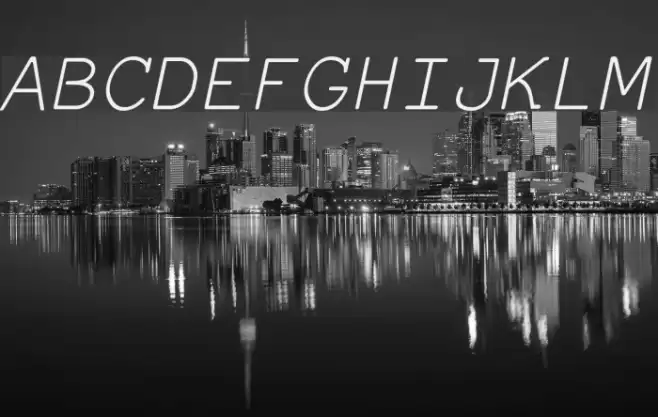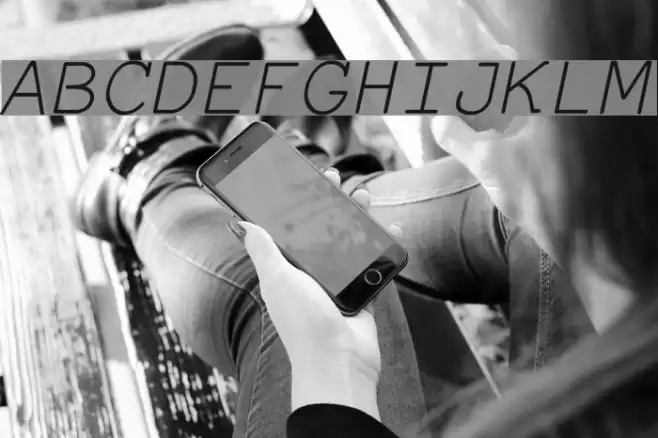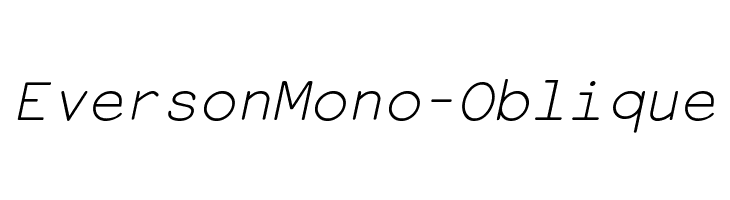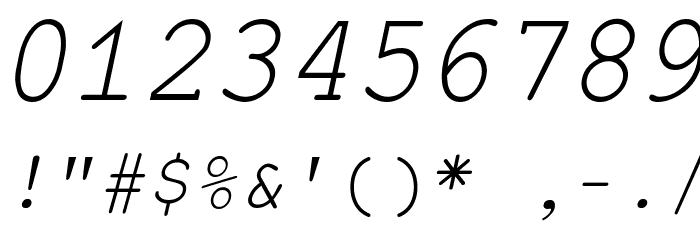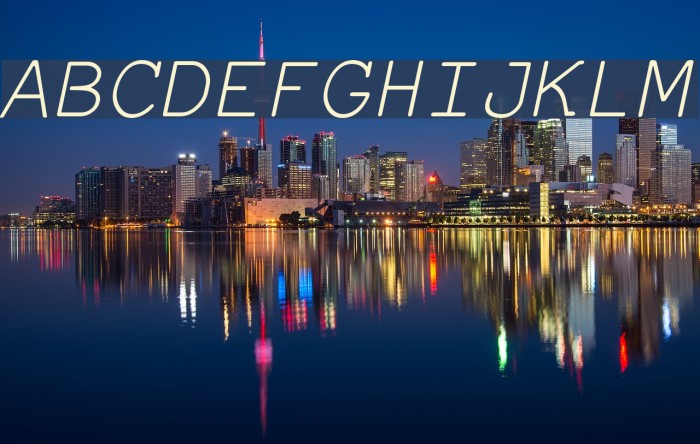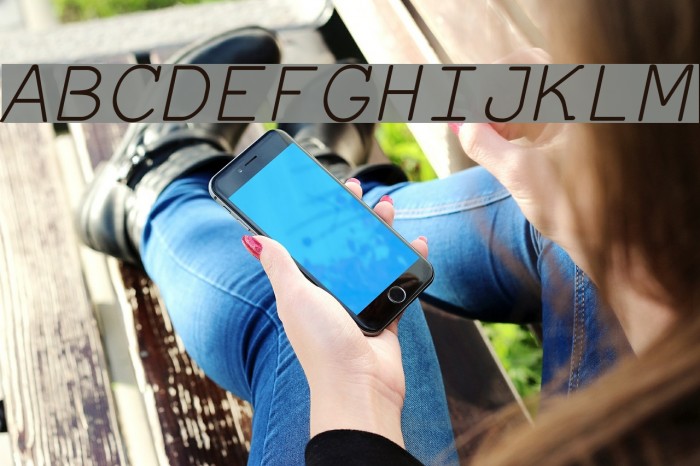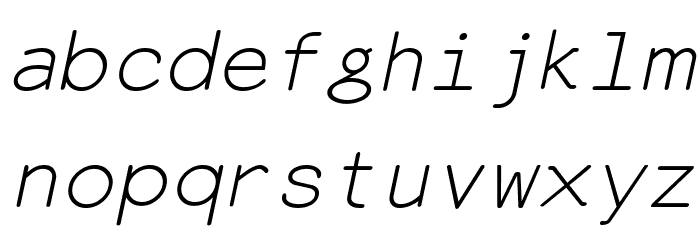
EversonMono-Oblique Font
EversonMono-Oblique Description
This font features a monospaced design with a distinctive oblique slant, giving it a modern and technical appearance. Each character is evenly spaced, ensuring uniformity and readability, which is ideal for coding and technical documentation. The strokes are consistent in weight, providing a clean and uncluttered look. The font includes a full set of uppercase and lowercase letters, numerals, and a variety of special characters, making it versatile for various applications. Its simplicity and clarity make it suitable for both digital and print media, where precision and legibility are paramount.
A monospaced, oblique font with a clean and modern design from Uncategorized fonts.
- Proposed Projects: Ideal for coding environments, technical documentation, and any project requiring precise alignment and readability.
- Use Case: Coding, Technical documentation, Digital media